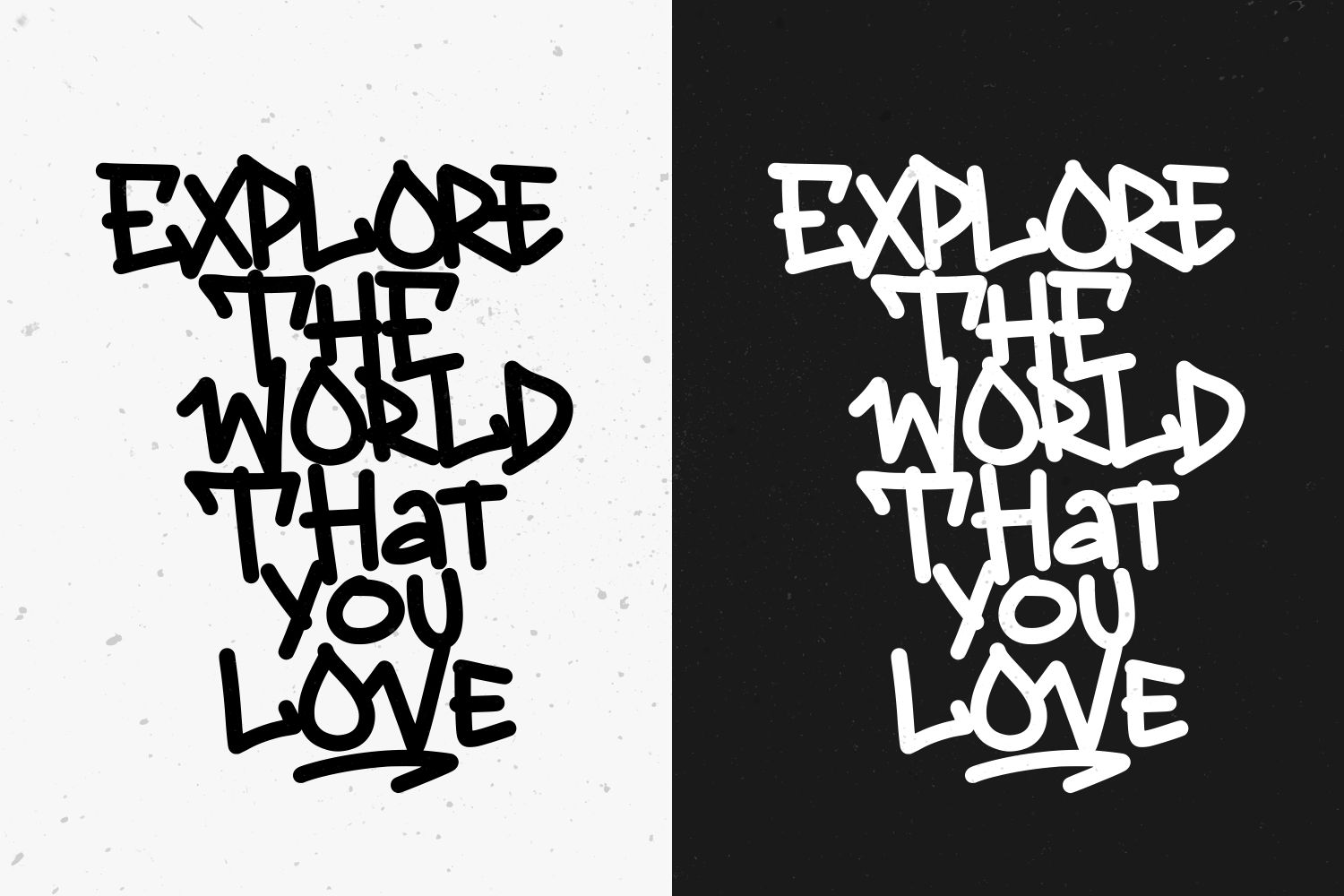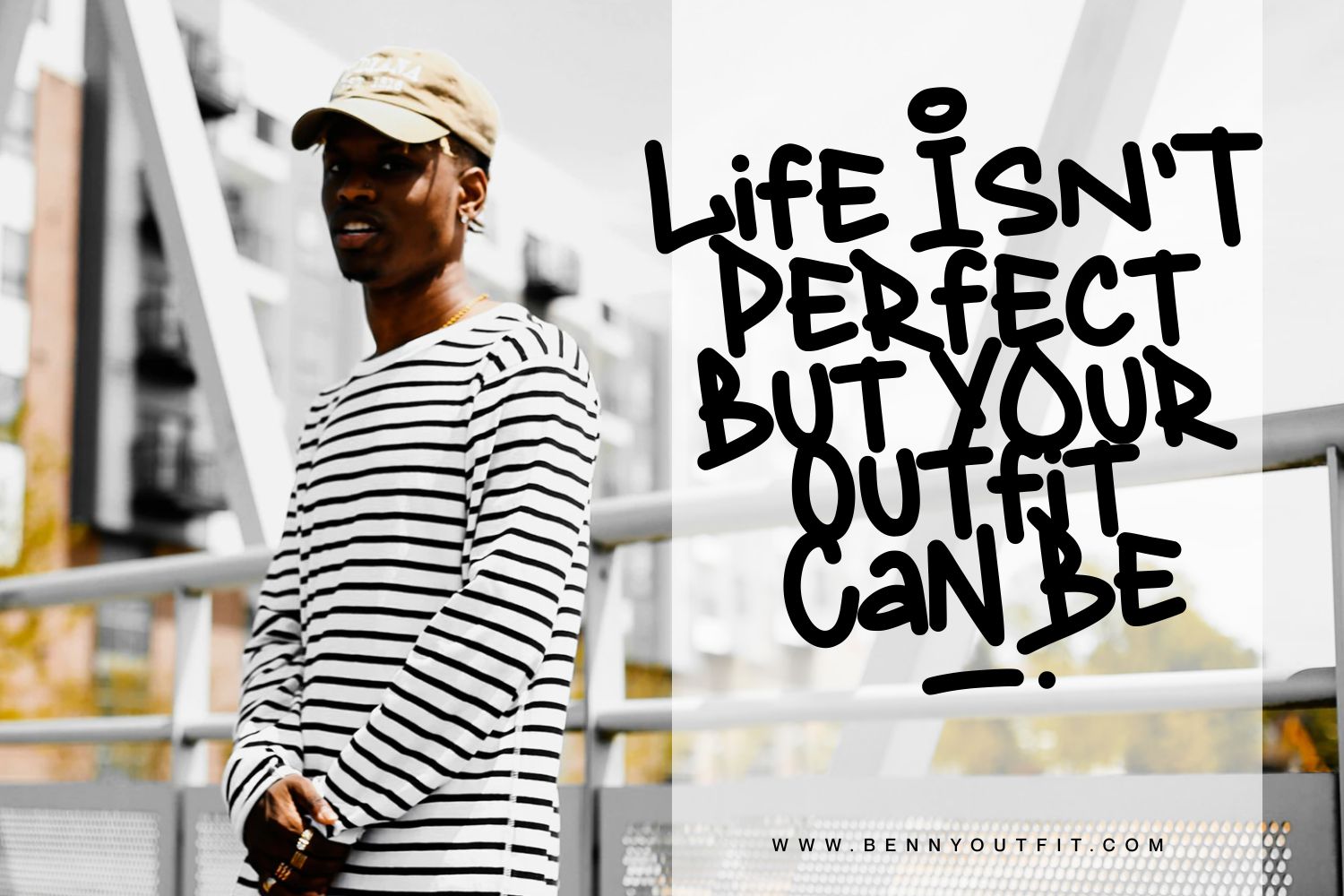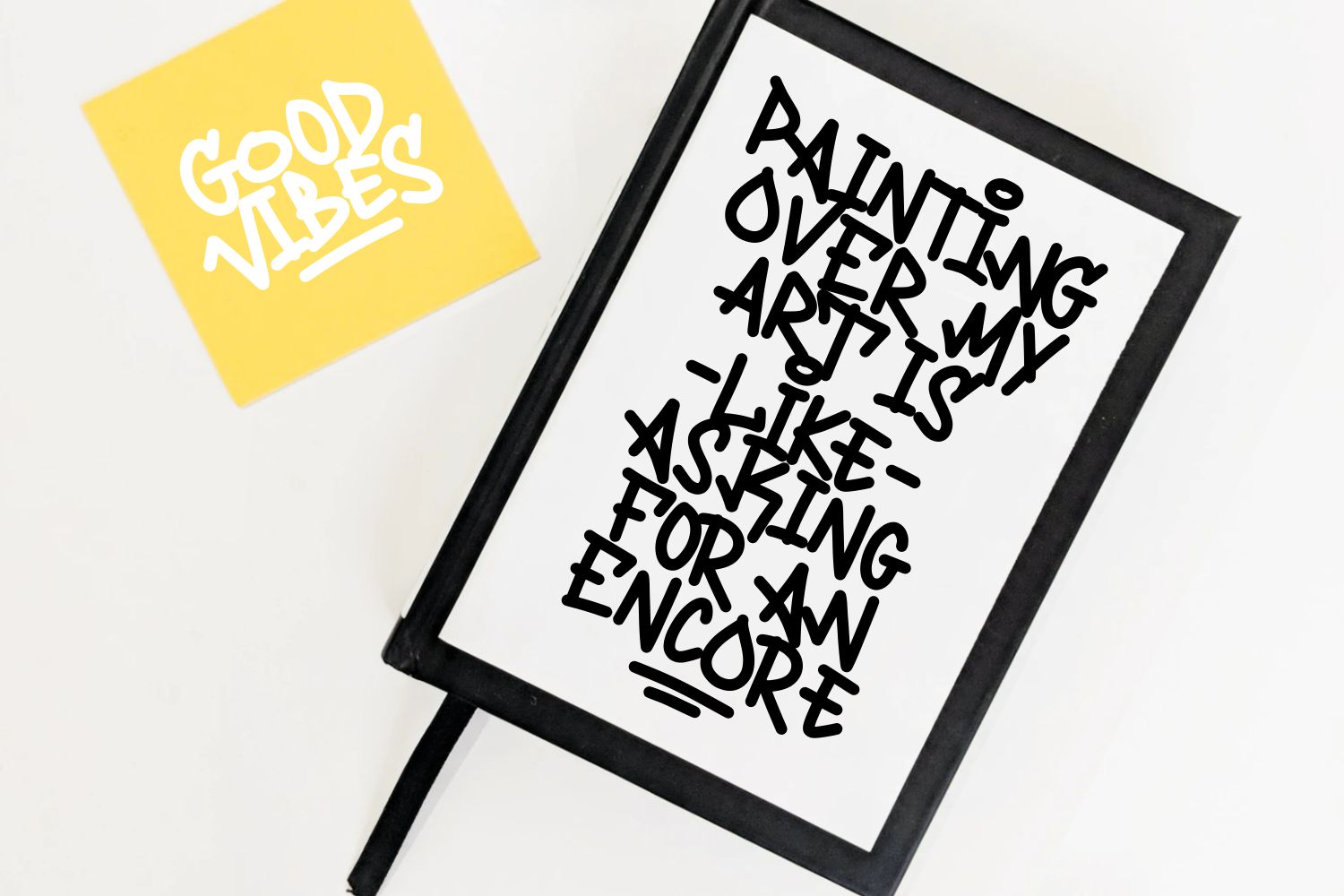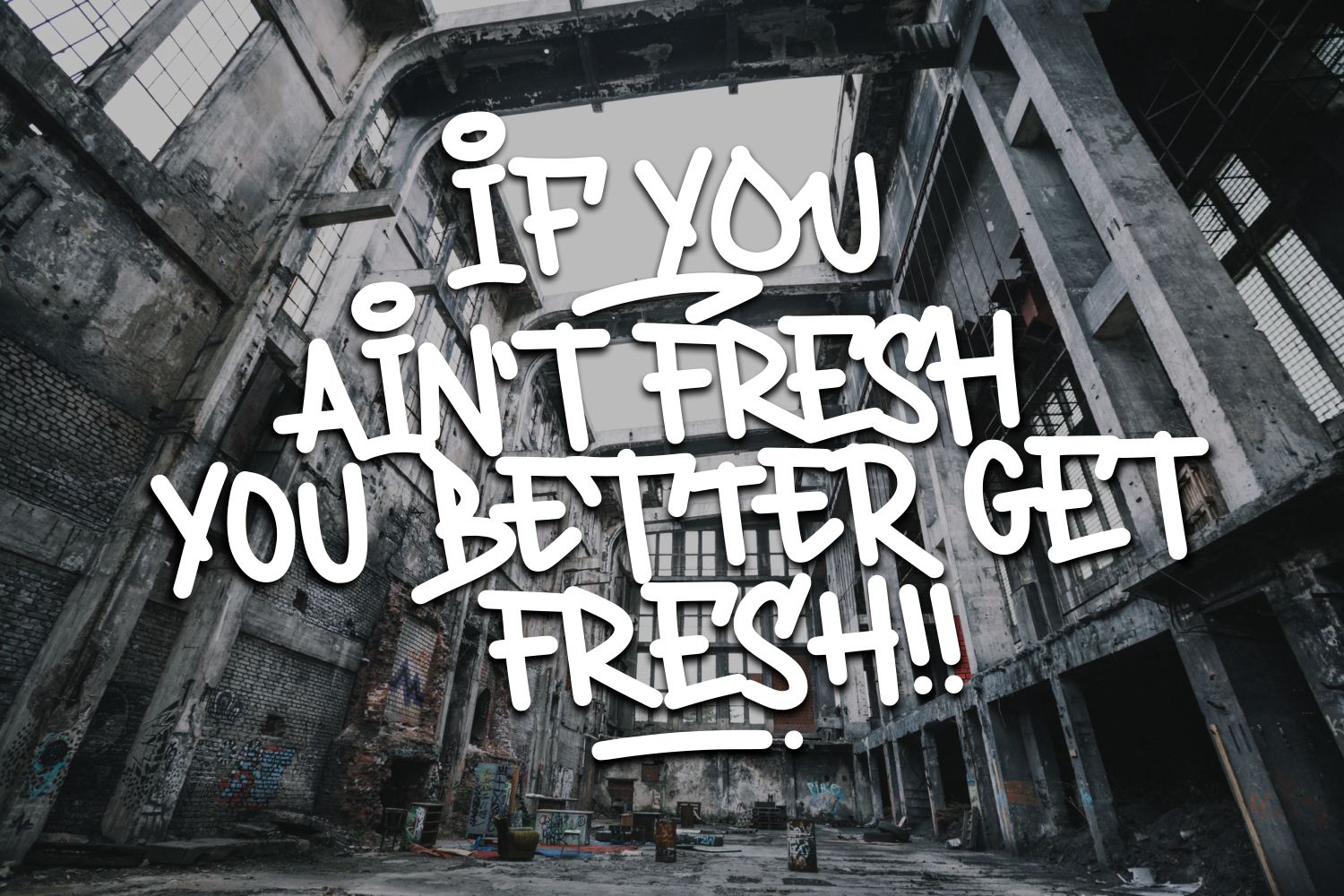
Wildwick Font
Wildwick Display Font
This is an awesome, graffiti-styled display font that has a futuristic, street art vibe. This font is suitable for designs such as t-shirts, sportswear, logos, advertisements, clothing, and more. Wildwick is PUA encoded which means you can access all of the amazing glyphs and ligatures with ease!